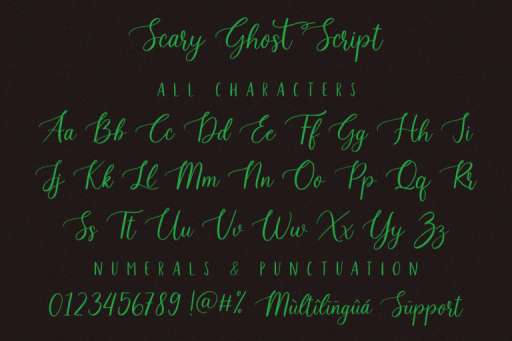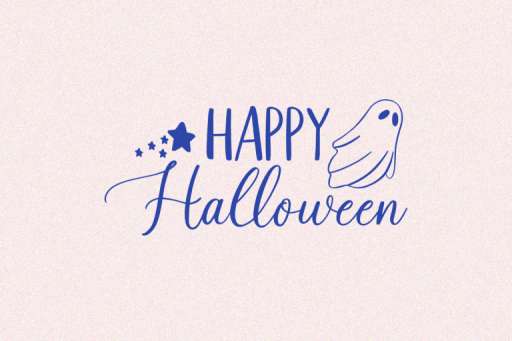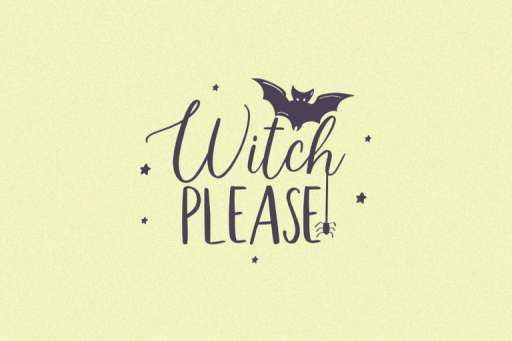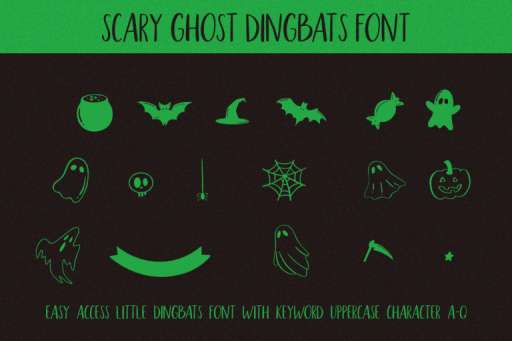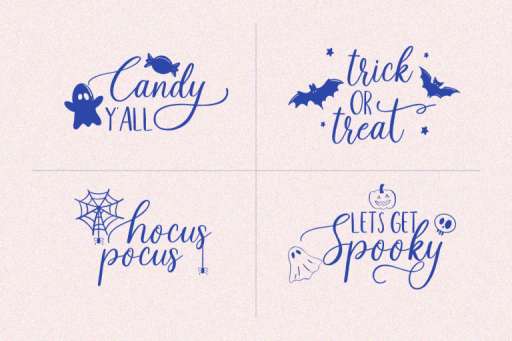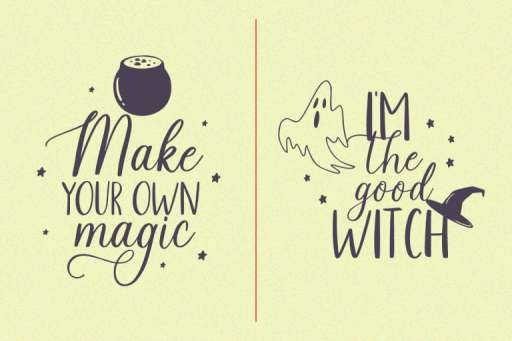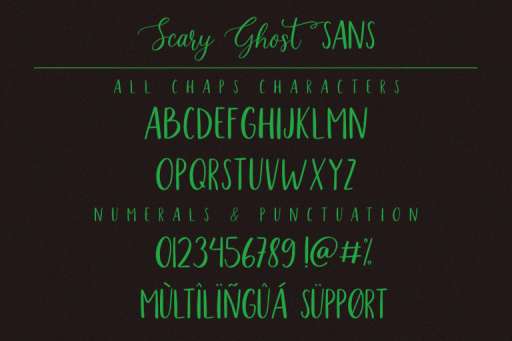
Scary Ghost Script
Scary Ghost Sans
Scary Ghost Dingbats
Scary Ghost – Halloween Parties Font
Scary Ghost is a fun font for celebrating a Halloween party. Scary Ghost has 3 types of fonts: Script, All Caps Sans Serif, and 17 characters Dingbats font. This font supports multilingual languages. Scary Ghost is perfect for designing greeting cards, posters, watermarks, labels, packaging, marketing, etc.